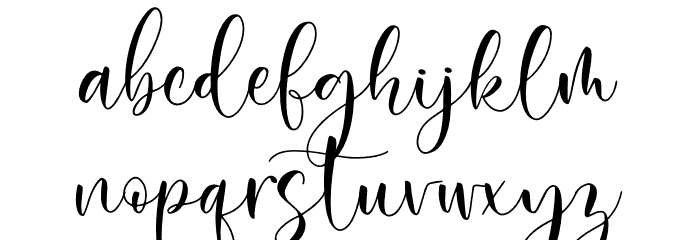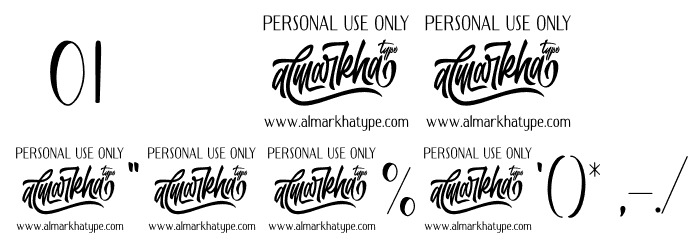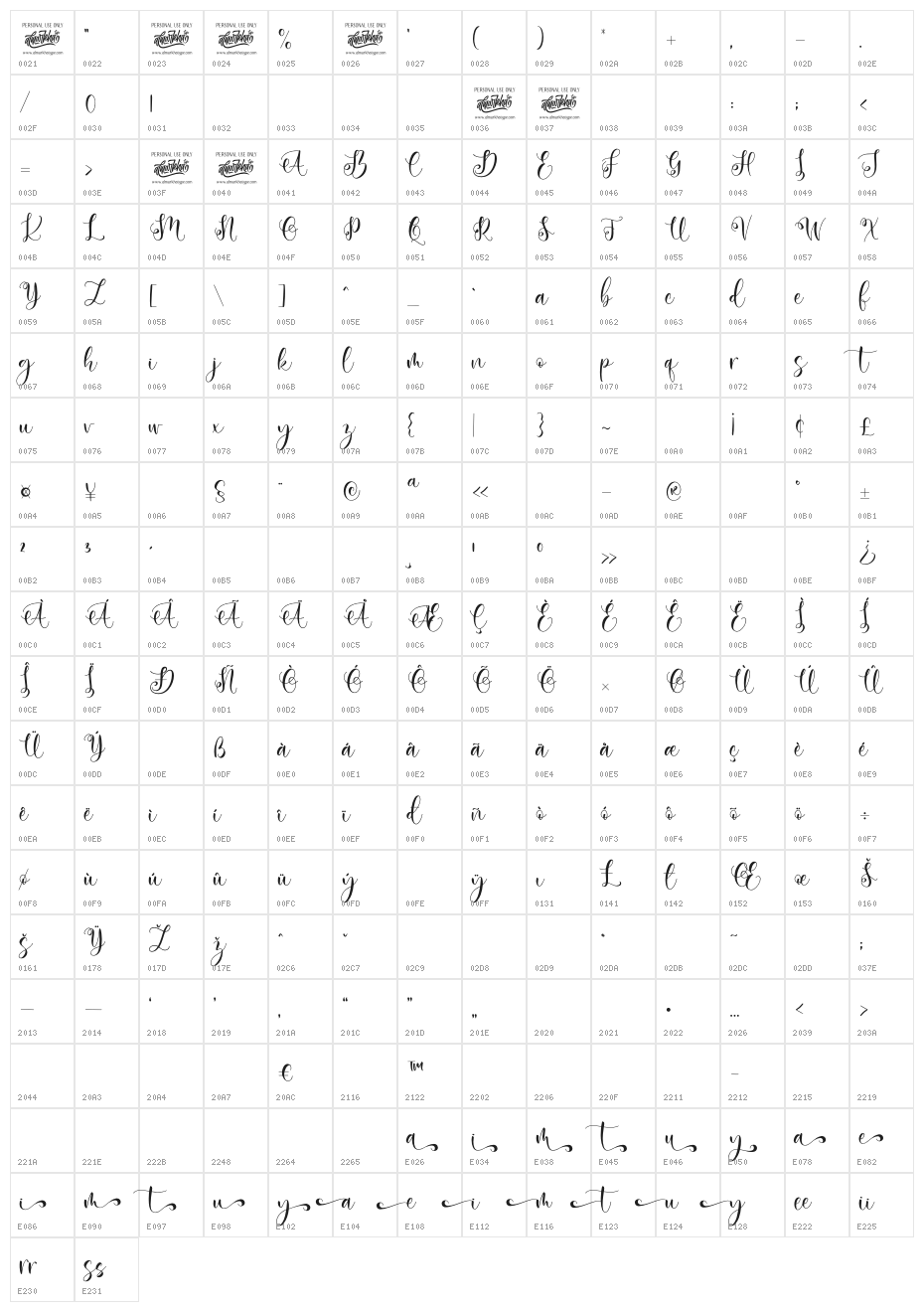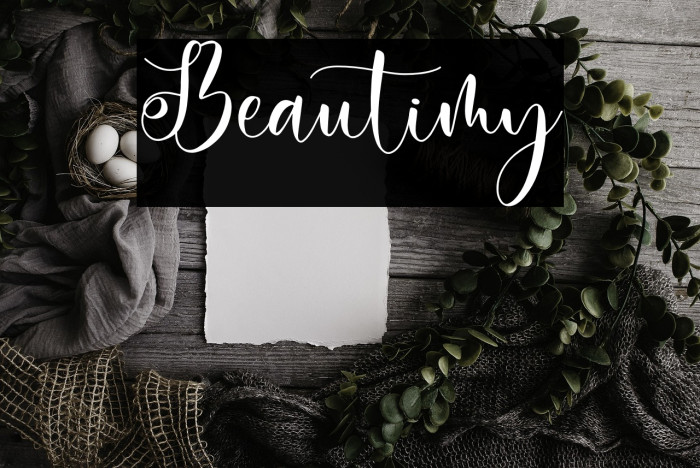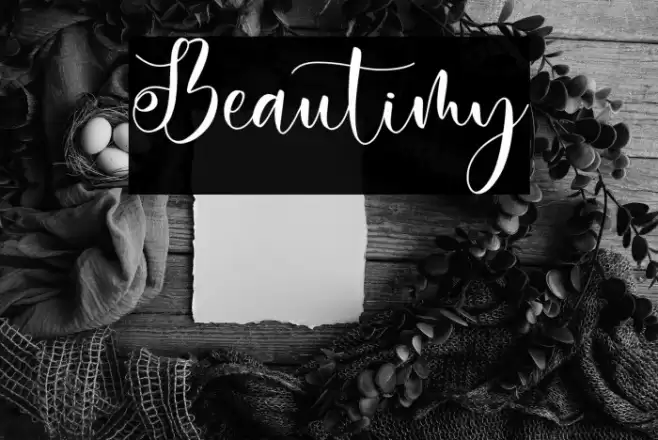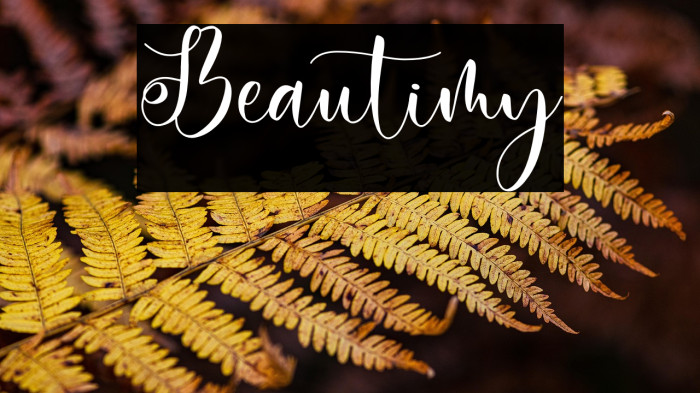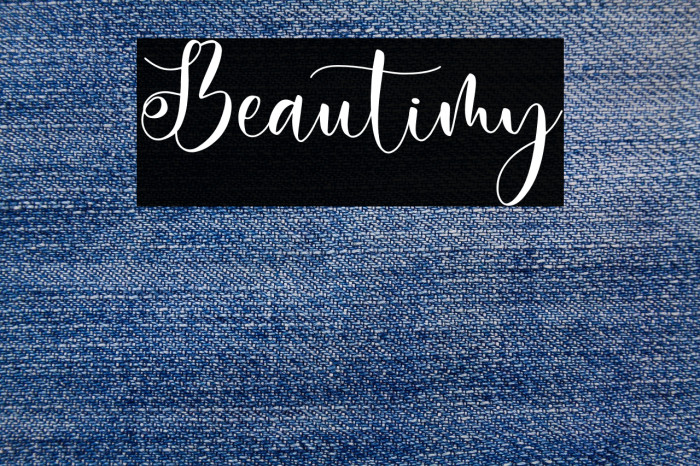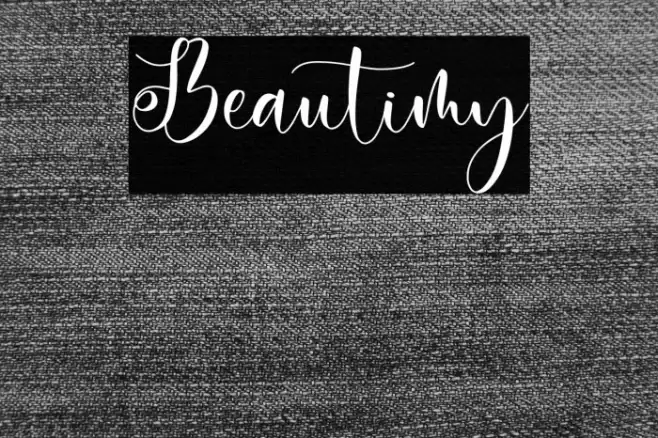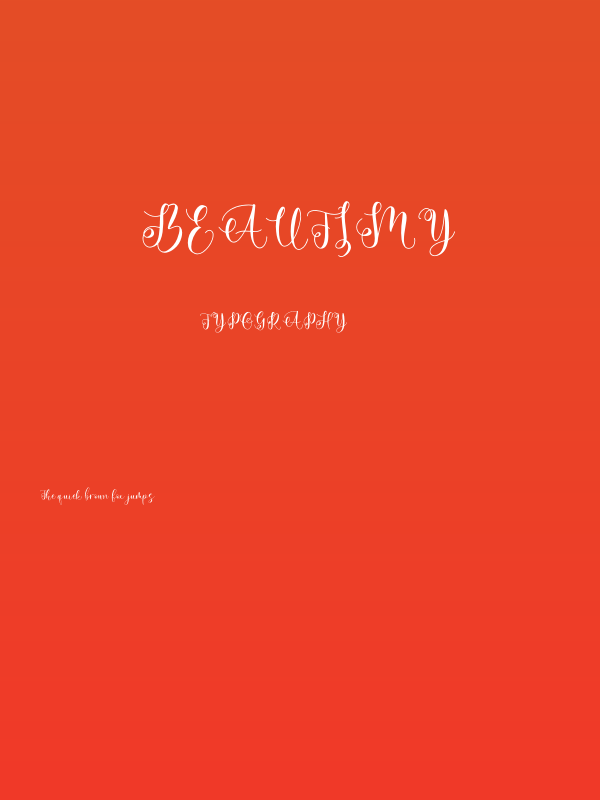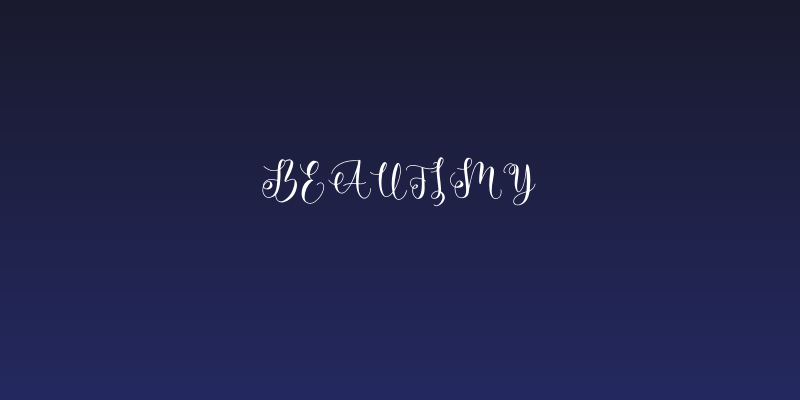
Beautimy Font
This font features an elegant and flowing script style, characterized by its intricate swirls and loops that give it a sophisticated and artistic appearance. The uppercase letters are particularly ornate, with elaborate flourishes that extend beyond the baseline and cap height, creating a sense of movement and grace. The lowercase letters maintain a consistent style, with smooth curves and a slightly more restrained use of embellishments, ensuring readability while retaining the font's decorative nature. The numerals and special characters are designed to match the overall aesthetic, with similar curves and flourishes. This font is ideal for projects that require a touch of elegance and creativity, such as wedding invitations, branding, and other formal or artistic designs.
An elegant, flowing script font with intricate swirls and loops.
- Proposed Projects: Wedding invitations, branding, artistic designs, formal event materials.